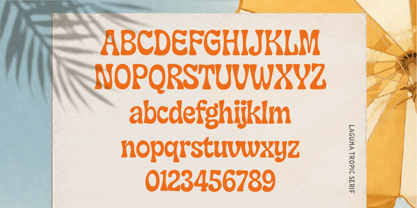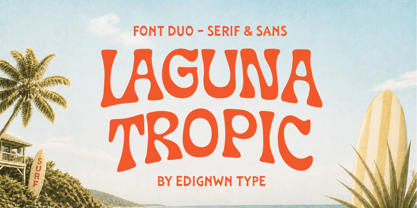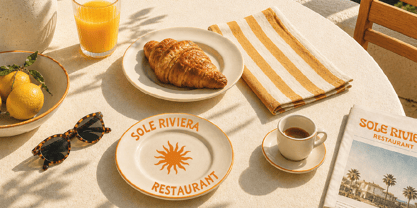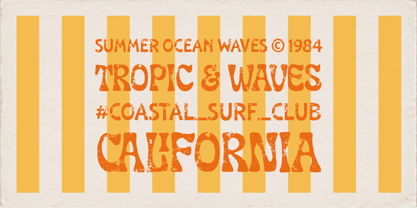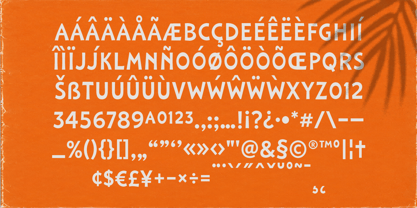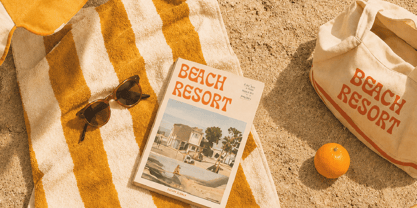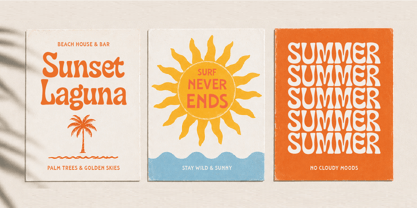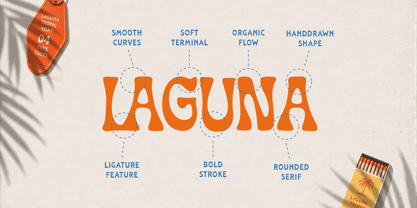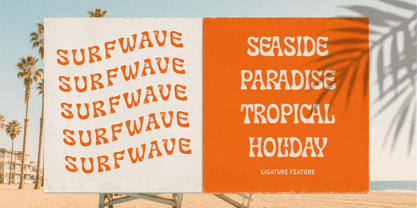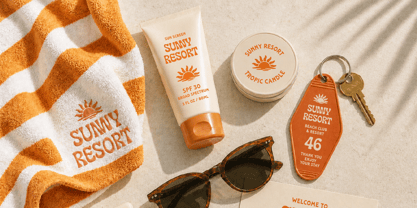
Laguna Tropic
Laguna Tropic is a serif and sans display font duo inspired by retro surf culture, tropical resorts, vintage beach motels, and endless summer days. Designed for visual branding designers, this typeface brings a warm coastal atmosphere with soft organic curves, handcrafted shapes, and bold vintage character. Combined together, Laguna Tropic creates a nostalgic beachside aesthetic inspired by classic coastal signage and vintage summer travel graphics. Perfect for logos, posters, resort branding, surf graphics, beach club visuals, packaging, apparel, and tropical editorial layouts
Laguna Tropic includes:
- 2 typefaces (Laguna Tropic Serif & Laguna Tropic Sans)
- 2 styles for each typeface (Regular & Textured)
- Uppercase, lowercase, numeral, symbol, punctuation and ligature in Laguna Tropic Serif
- All-caps, numeral, symbol and punctuation in Laguna Tropic Sans